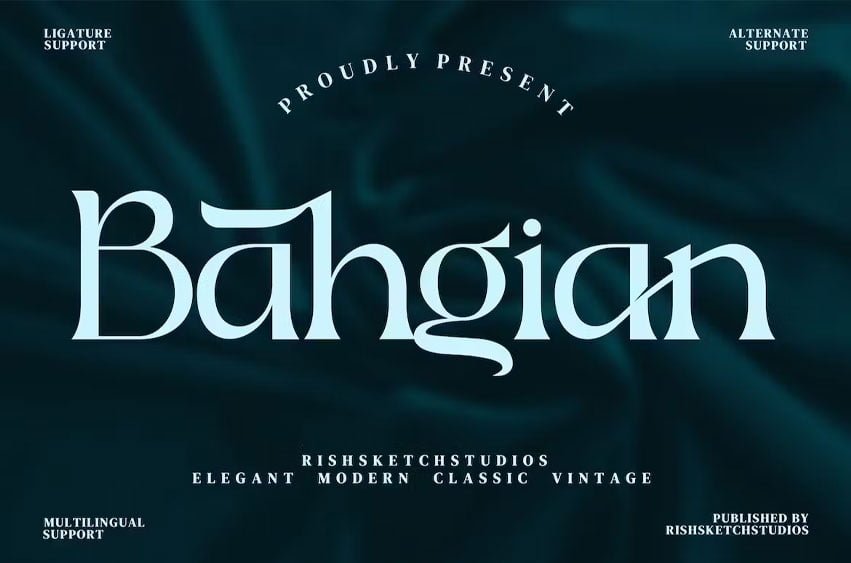
Bahgian Font
Bahgian Font Elegant Classic Serif Font, from MAH Studios, is a premium Serif Font, suitable for any projects luxury projects that need a premium signature taste.
Ligature, Alternate & Multilingu